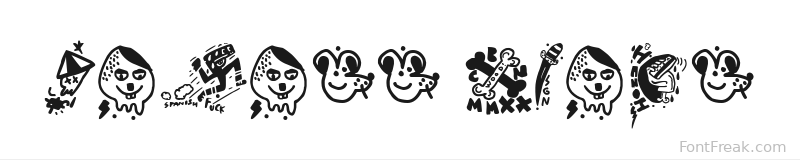
Badass Draws
Badass Draws by woodcutter Manero is a captivating display font that embodies a playful yet edgy aesthetic. This unique font features a handwritten style, characterized by its loose, organic forms that evoke a sense of spontaneity and creativity. With bold stroke weights and minimal contrast, the letters appear thick and expressive, making a strong visual statement. The spacing is intentionally varied, enhancing its dynamic character and adding a sense of whimsy. Decorative elements are woven throughout the design, including playful doodles and quirky shapes that reflect a fun, artistic vibe.
This font is ideal for a variety of creative applications. It shines in contexts such as event flyers, where its bold presence can grab attention and convey excitement. It also works beautifully on merchandise like t-shirts and stickers, adding a unique flair to everyday items. Additionally, Badass Draws is perfect for social media graphics, allowing content creators to make their posts stand out with a distinctive style. Its playful nature makes it a great fit for children’s products and branding, where fun and creativity are paramount.
Targeted primarily at graphic designers, small business owners, and content creators, this font provides a fresh alternative to more conventional typefaces. It appeals to those looking to inject personality and uniqueness into their projects.